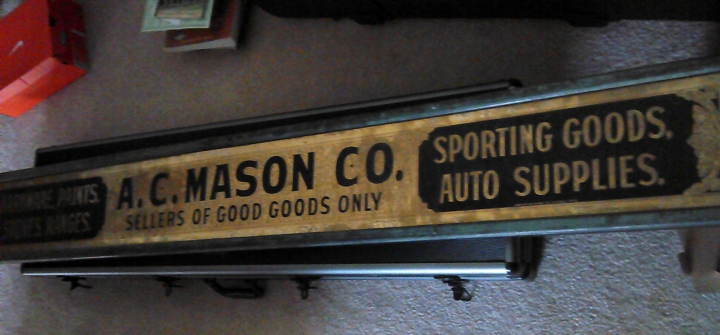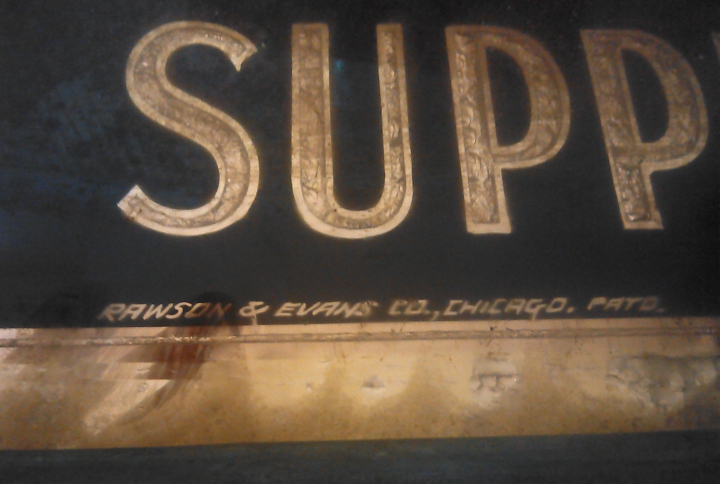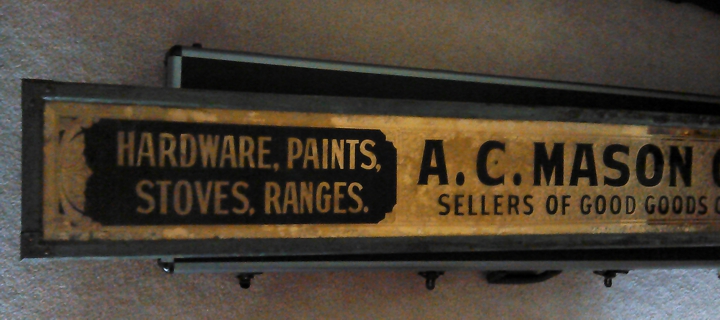
Rawson & Evans store sign
I have an old Rawson & Evans store sign. I have a few questions:
1) What is the best way to get a sign apraised?
2)How rare are they?
Re: Rawson & Evans store sign
Matt emailed me some photos of his sign.
He states the frame around the sign measures in at 73.75" long x 9.75" tall x 1.5" thick.
The photos appear to be taken with a camera phone.
Re: Rawson & Evans store sign
Here is what I told Matt about his sign:
Matt,
Poor Pics, But Great Sign.
Yes indeed a Rawson and Evans Gilded Sign.
Judging from the photos, this sign dates to at least 1915.
I can't see any lap lines from the gold, so that and its dark toned gold coloring would indicate it is solution gilded.
Rawson and Evans started in Chicago in 1890. They did not start solution gilding until 1915.
The style of the lettering and it's punctuation would place it around 1915 to 1925.
There are some condition issues, but they look to be minor.
Re: Rawson & Evans store sign
A little looking and this is what I came up with from the pages of the Hardware Dealers' Magazine of 1920...